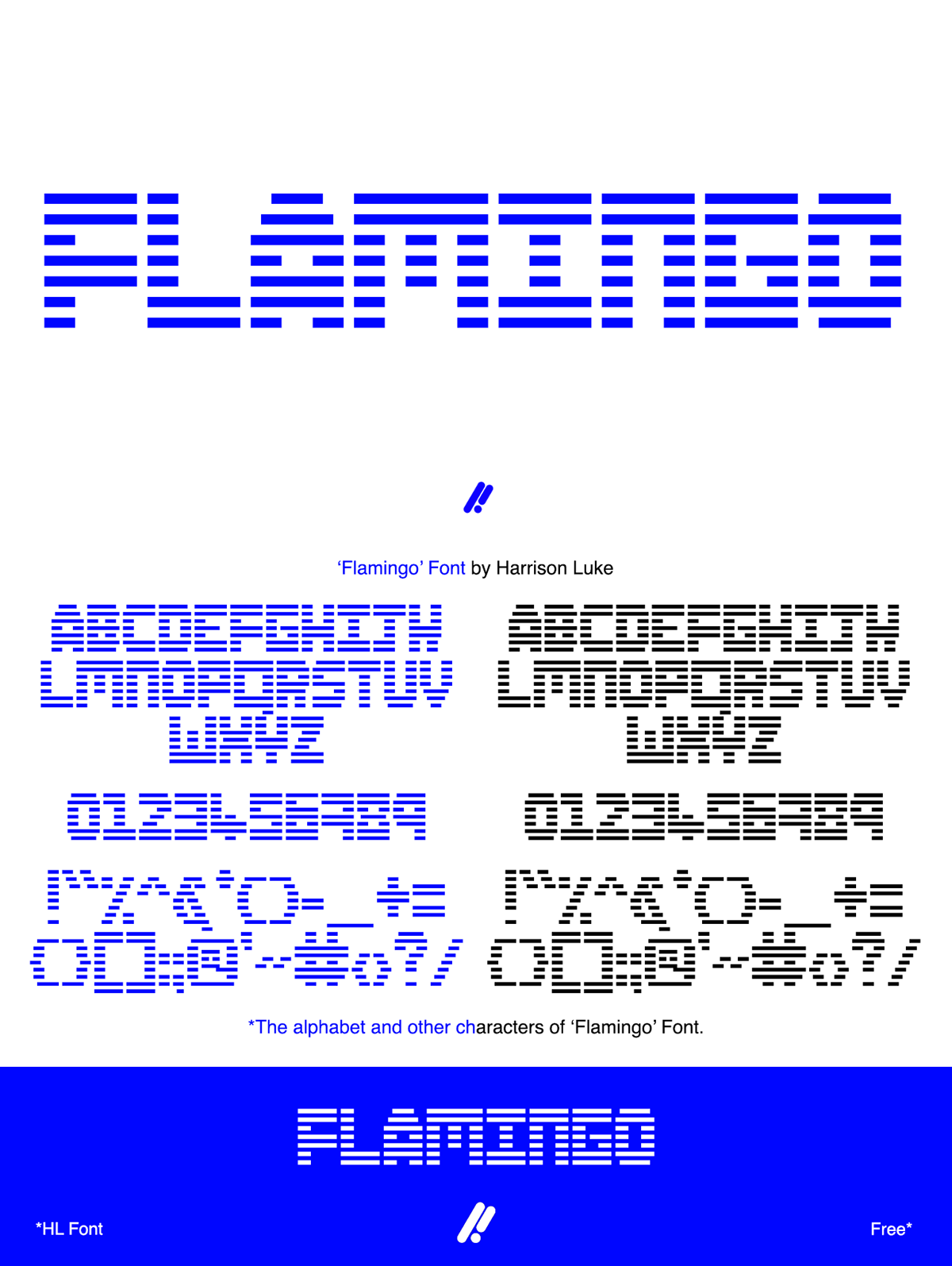
Flamingo – Free Display Font is a striking, an attention-seeking font! This font appear retro yet stylish with its cool stripes upon every characters. A great font choice for display purpose. With its big bold characters it’s perfect to use as YouTube thumbnail, brand identity, logo design, labels and posters.
Flamingo